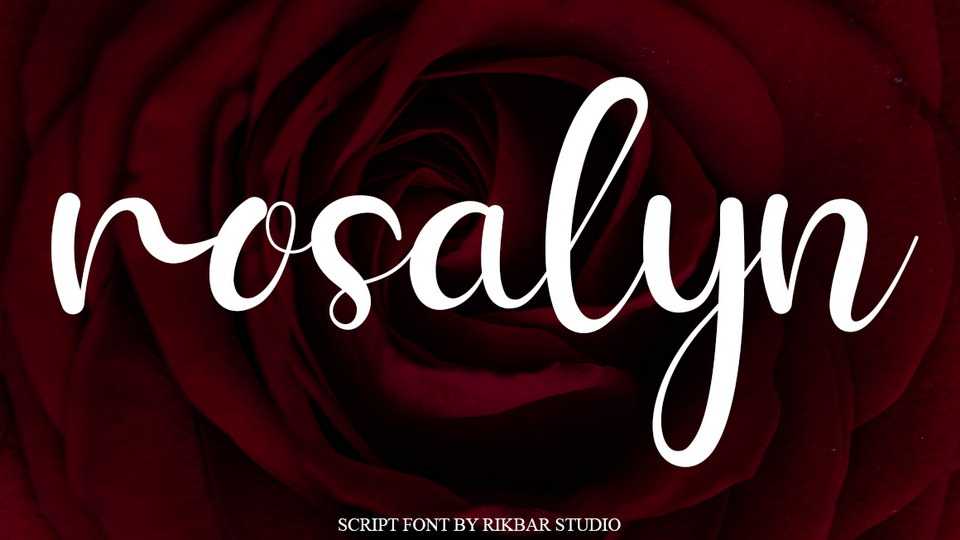
Download Rosalyn font, a lovely handwritten script typeface. Rosalyn font is perfect for each of your love letters, wedding invitations or favorite design ideas, and you will be astounded by the outcome.
Designer: Rikbar Creator